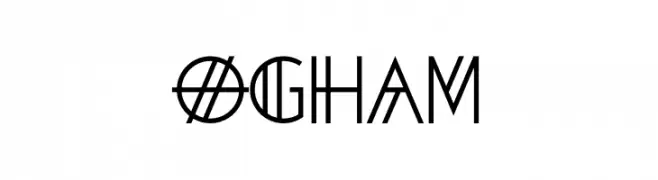
A bold, geometric stencil font with a modern, industrial style.
A futuristic, geometric font with bold, rounded shapes and a stencil-like appearance.
A bold, stylized 'A' pattern with strong contrast and three-dimensional effects.
A bold, futuristic font with geometric shapes and sharp angles.
A bold, geometric font with a futuristic and edgy style.
A bold, geometric font with a futuristic and abstract design.
A modern, tubular font with a playful, bamboo-like design.
A decorative, angular font with sharp geometric lines and intricate patterns.
A bold, modern font with an industrial and robust design.
A bold, geometric stencil font with angular, blocky letterforms.
A bold stencil font with high contrast and geometric shapes.
A bold, modern font with a stencil-like, industrial design.
A bold, geometric stencil font with sharp, angular edges.
A bold, decorative stencil-style font with intricate floral patterns.
A bold, geometric stencil font with an industrial feel.
A geometric and abstract font with bold, angular shapes and intricate line patterns.
A bold, decorative font with unique cut-out patterns and rounded edges.
A playful, straw-inspired decorative font with a hand-drawn look.
Bold stencil font with a rugged, industrial style.
A bold, stencil-style font with a rugged, military-inspired design.
A grid-patterned font with a textured, industrial look.
A playful, bold font with a mix of solid and outlined characters.
A bold, angular font with a futuristic and dynamic style.
A bold, geometric font with sharp angles and a three-dimensional shadow effect.
A bold, stencil-like font with angular strokes and a dynamic, aggressive style.